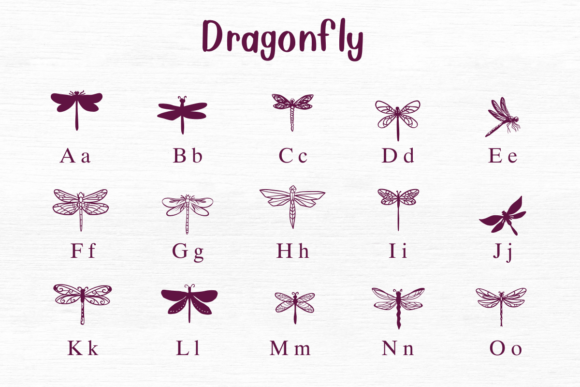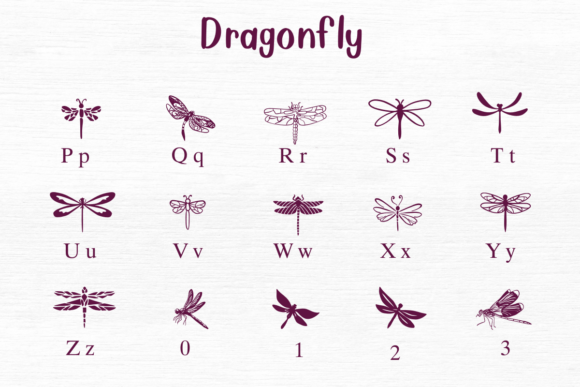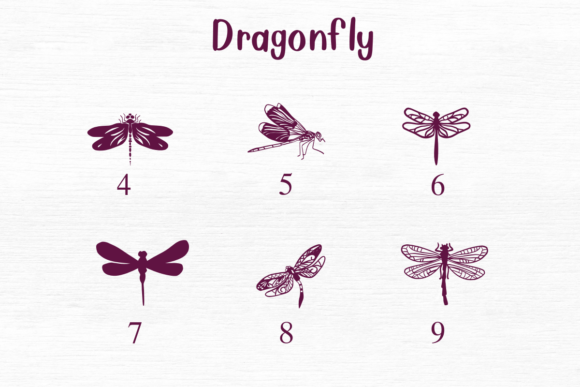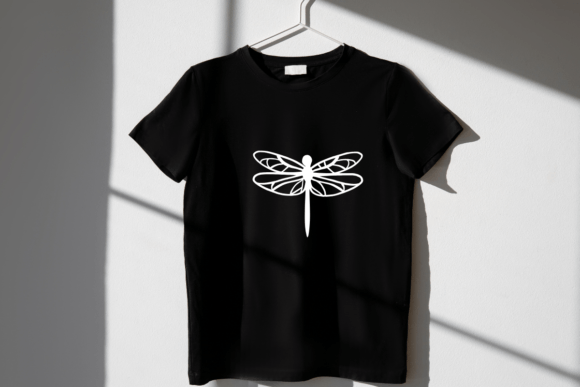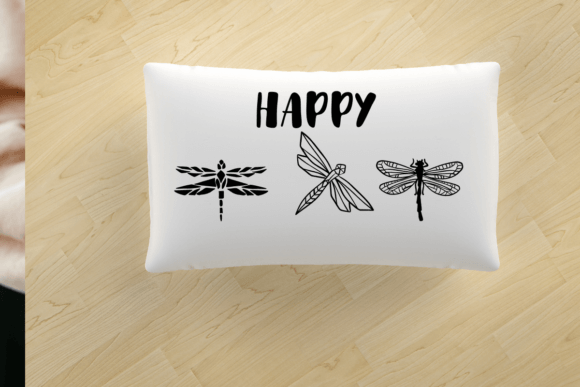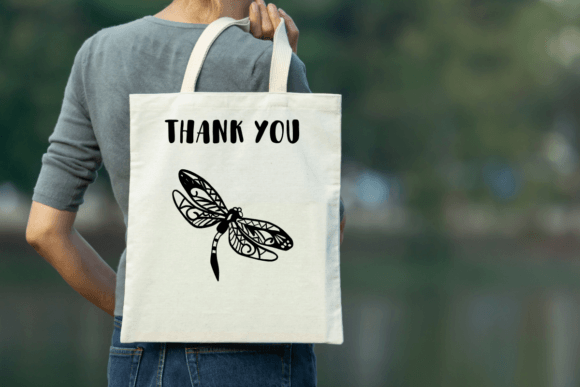
Dragonfly Font: Adding Whimsy and Wonder to Your Designs
Are you tired of using the same old fonts in your designs? Look no further than the Dragonfly Font, a decorative font that adds a touch of whimsy and wonder to any project. Made up of symbols and small images instead of letters and numbers, this unique font is perfect for designers and crafters looking to add some visual interest to their work.
What is a Dingbat Font?
Dragonfly Font is a type of font known as a “dingbat font.” Dingbat fonts are made up of symbols, icons, and small images instead of traditional letters and numbers. They’re often used to add a decorative touch to designs, and can be used to create unique and eye-catching text. In the case of Dragonfly Font, the symbols and images are inspired by dragonflies and other small, delicate creatures.
Using Dragonfly Font in Your Designs
Dragonfly Font is perfect for a variety of design projects, from scrapbooking and card making to graphic design and digital art. The font includes a range of dragonfly-inspired images, including dragonflies, leaves, and flowers. These images can be used to add a touch of whimsy and personality to your designs, and can be used to create everything from titles and headings to borders and embellishments.
Benefits of Using Dragonfly Font
There are many benefits to using Dragonfly Font in your designs. Here are just a few:
- Unique and eye-catching: Dragonfly Font is a one-of-a-kind font that will add a touch of personality to your designs. The symbols and images are sure to catch the eye and add visual interest to your work.
- Perfect for creative projects: Dragonfly Font is ideal for creative projects like scrapbooking, card making, and digital art. The font’s whimsical and playful nature makes it perfect for projects that require a touch of personality and flair.
- Scalable: Dragonfly Font is scalable, which means that you can use it to create everything from small titles and headings to large banners and signs. The font will remain clear and crisp, even at large sizes.
Tips for Using Dragonfly Font
Here are a few tips for using Dragonfly Font in your designs:
- Use it sparingly: While Dragonfly Font is certainly eye-catching, it can be overwhelming if used too much. Try using it sparingly to add a touch of personality to your designs, rather than using it for entire blocks of text.
- Mix and match: Don’t be afraid to mix and match different symbols and images from Dragonfly Font to create unique and interesting combinations. This will help to add visual interest to your designs and keep them looking fresh and exciting.
- Experiment with color: Dragonfly Font looks great in a variety of colors, from bright and bold to soft and pastel. Experiment with different colors to find the perfect look for your designs.
Dragonfly Font is a unique and exciting font that adds a touch of whimsy and wonder to any design project. With its range of dragonfly-inspired symbols and images, this font is perfect for designers and crafters looking to add some visual interest to their work. Whether you’re working on a scrapbooking project, a graphic design project, or simply looking for a new font to add to your collection, Dragonfly Font is definitely worth checking out.